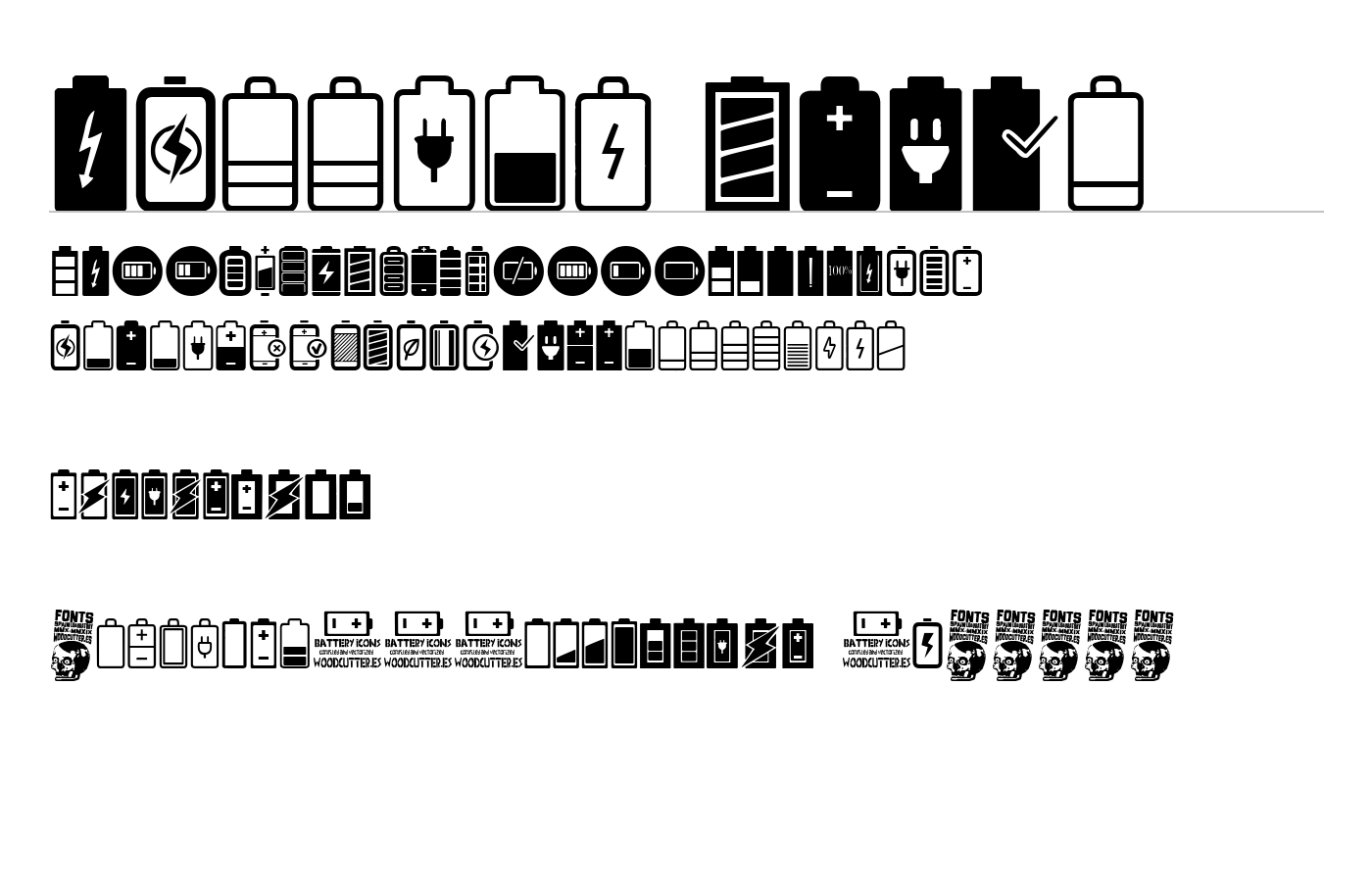
Battery Icons Font is a bold, clean, and highly recognizable icon font featuring a wide range of battery and power-related symbols. Its simple, geometric shapes with solid and outlined styles make it perfect for tech, energy, or environmental projects needing clear visual communication at any size. This font works well for user interfaces, apps, websites, and presentations where intuitive iconography enhances user experience.
Battery Icons Font
About Battery Icons Font